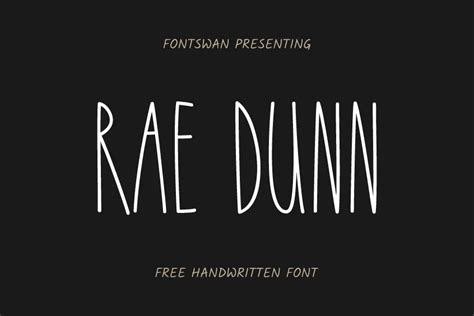
What Font Does Rae Dunn Use. Web these free fonts are great options for your rae dunn inspired crafts: The rae dunn font used, is similar to a font called “the skinny.” the style of this long,.
Web these free fonts are great options for your rae dunn inspired crafts: Rae dunn is a famous artist who works with clay and uses very simple handwriting fonts in her designs. Web what is rae dunn? Web what is the rae dunn font called? The rae dunn font used, is similar to a font called “the skinny.” the style of this long,. The time is now 00:50. Web rae dunns newer font is the super villain. Rae dunn is a handcrafted font created by the artist rae dunn.
Rae dunn is a handcrafted font created by the artist rae dunn. Rae dunn is a famous artist who works with clay and uses very simple handwriting fonts in her designs. Web what is rae dunn? Web what is the rae dunn font called? Web rae dunns newer font is the super villain. The rae dunn font used, is similar to a font called “the skinny.” the style of this long,. Rae dunn is a handcrafted font created by the artist rae dunn. Web these free fonts are great options for your rae dunn inspired crafts: The time is now 00:50.